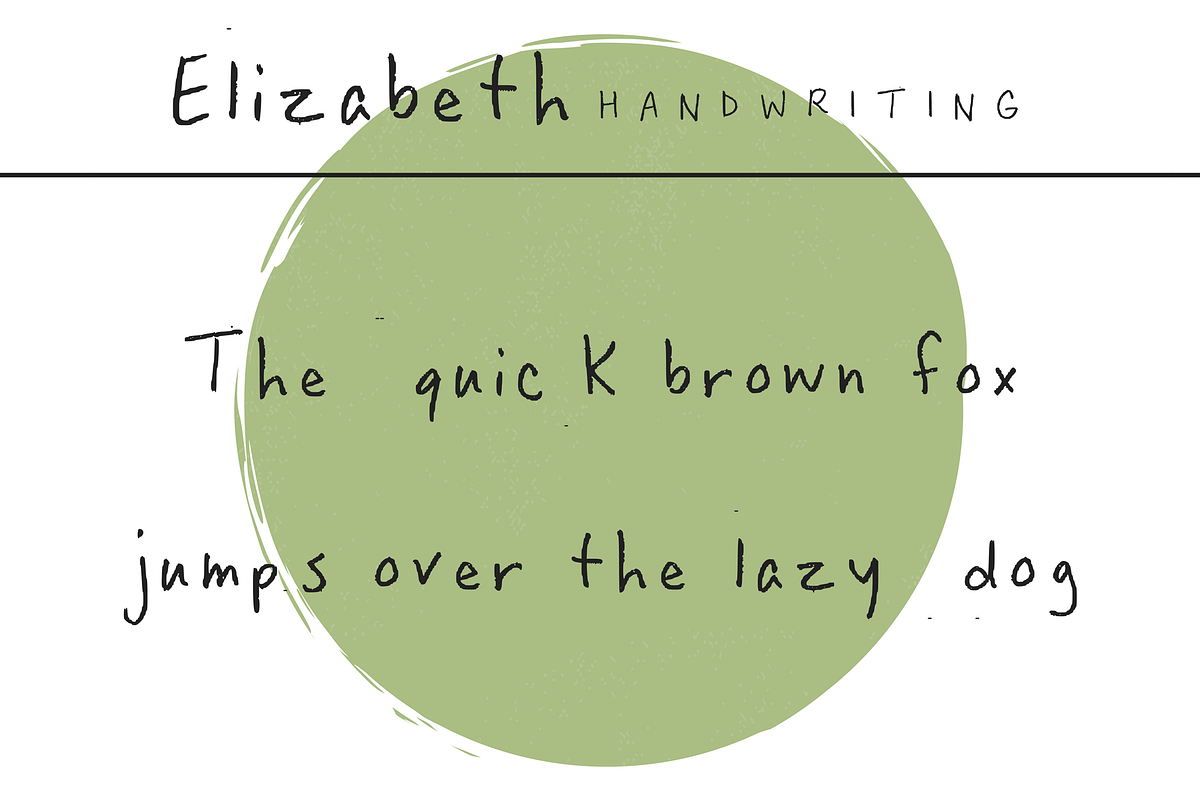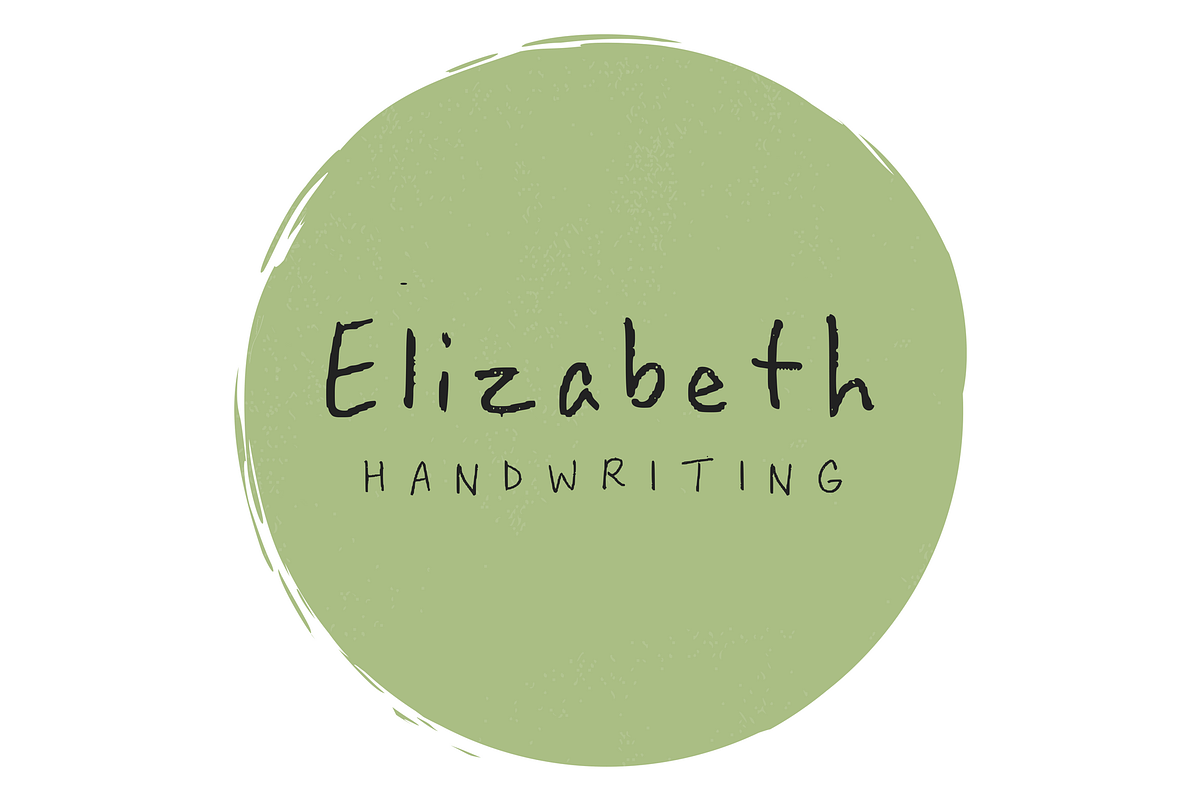
Elizabeth Handwriting
This font is a fun yet clean handwriting script font based on Jihi Elephant's founder's handwriting. This font is easy to read and a nice font for marketing purposes!